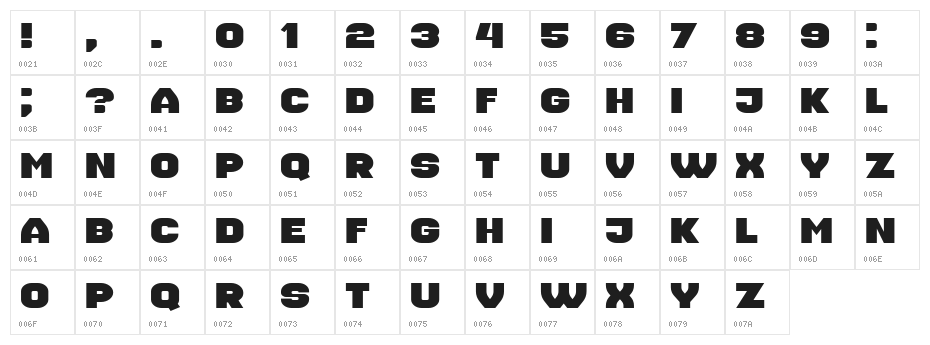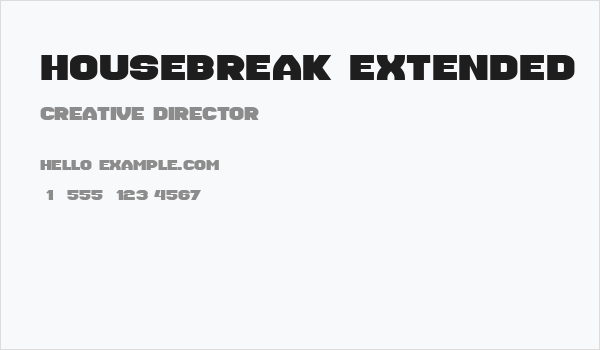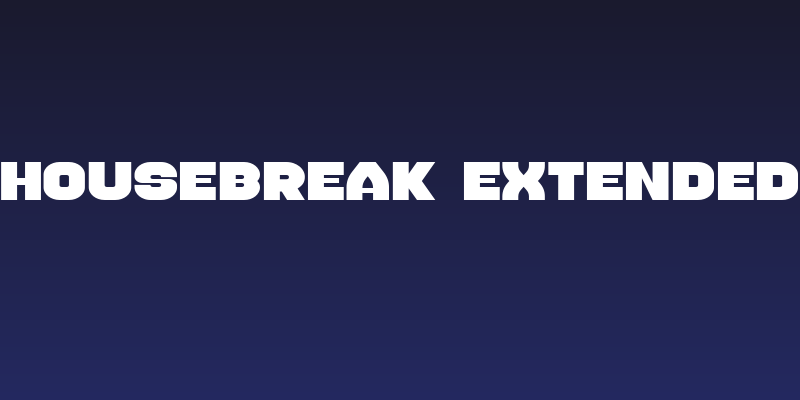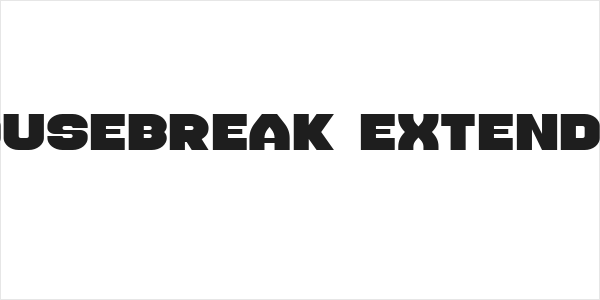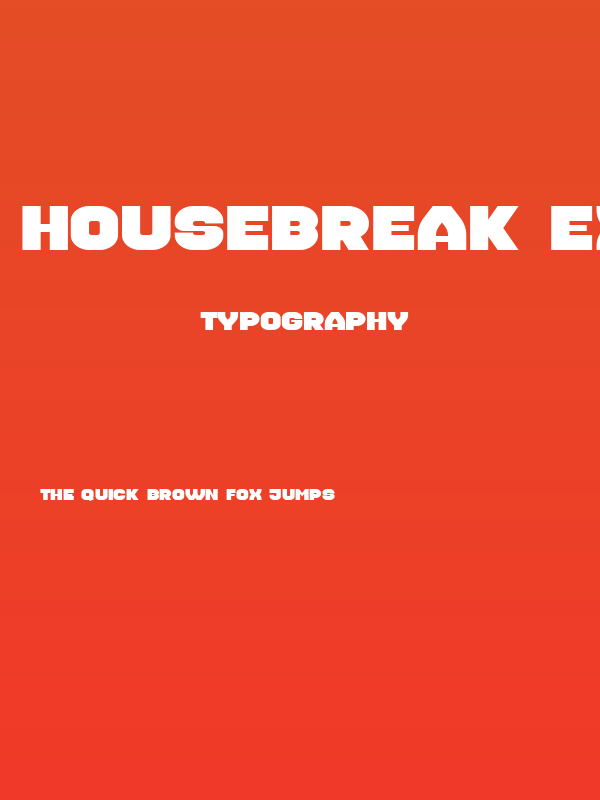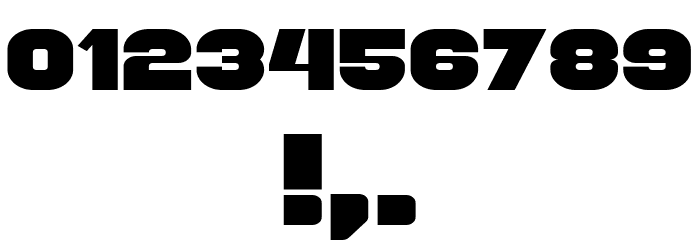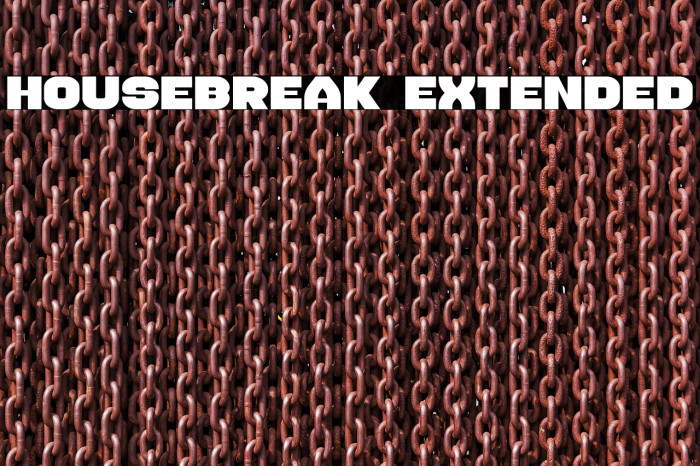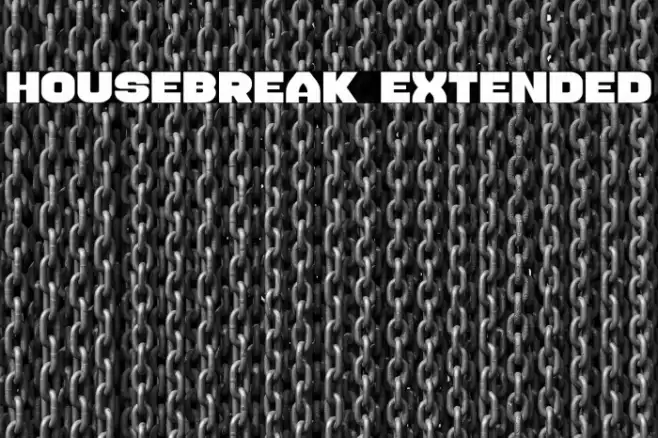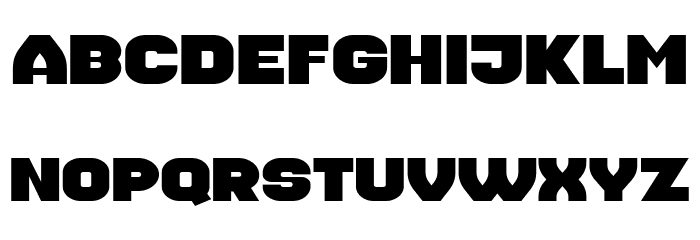
Housebreak Extended Font
Housebreak Extended Description
This font features a bold and robust design with a strong geometric structure. The characters are wide and blocky, giving them a powerful presence. The uppercase letters are uniform in height, while the numbers maintain the same bold aesthetic. The overall style is modern and impactful, suitable for making statements. The font's design emphasizes clarity and strength, making it ideal for attention-grabbing headlines or logos. Its extended width and heavy weight contribute to its commanding appearance, ensuring visibility and readability from a distance.
| Proposed Projects | Ideal for branding, posters, headlines, and any design requiring a strong visual impact. |